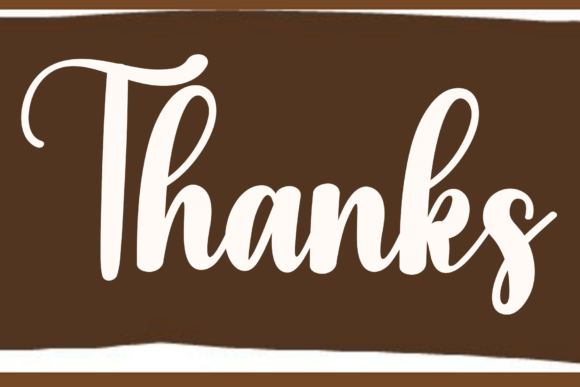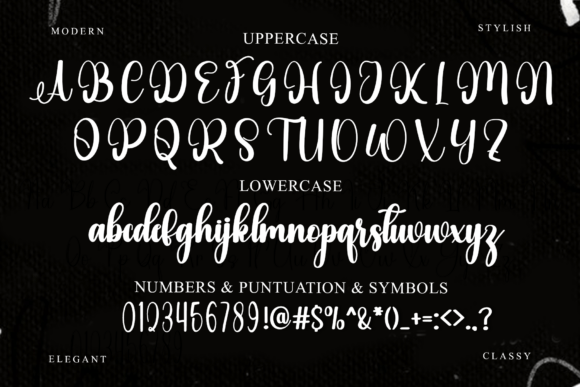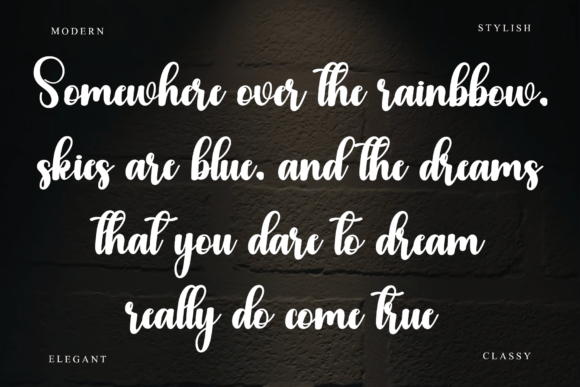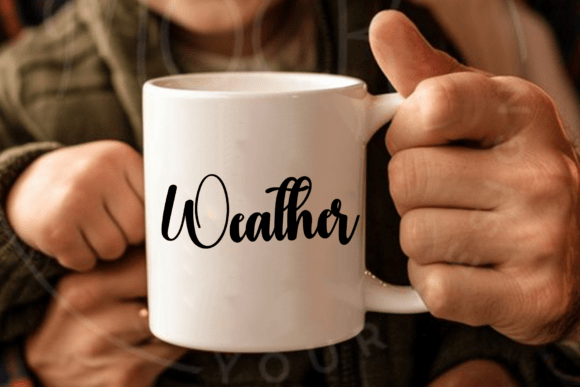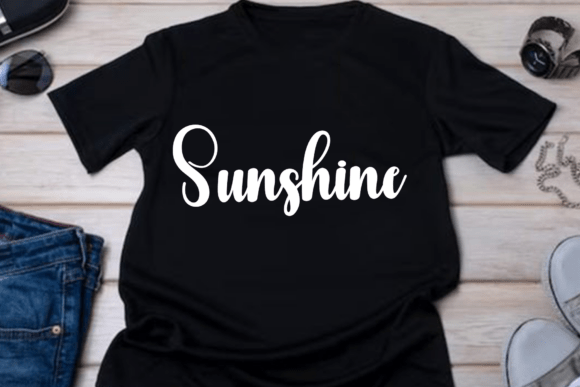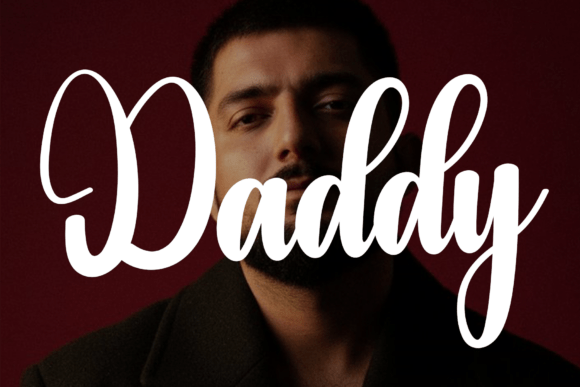
Introducing Cardinal Font: The Ultimate Holiday Typeface
The holiday season is upon us, and what better way to get into the spirit than with a festive and merry typeface? Look no further than Cardinal Font, a decorative and whimsical font that captures the essence of the most wonderful time of the year. With its enchanting elements and nostalgic flair, this font is perfect for adding a touch of magic to your designs, greeting cards, gift tags, and holiday-themed projects.
The Magic of Cardinal Font
Cardinal Font is more than just a typeface – it’s an experience. Its decorative elements and whimsical design evoke the feeling of a winter wonderland, transporting your readers to a world of snowflakes, hot chocolate, and cozy nights by the fire. Whether you’re a designer, crafter, or DIY enthusiast, this font is sure to bring a smile to your face and inspire your creativity.
Cardinal Font is specifically designed with the holiday season in mind. Its festive and merry design makes it perfect for a wide range of projects, including:
- Greeting cards: Create personalized and unique holiday cards that will make your loved ones feel special.
- Gift tags: Add a touch of elegance and whimsy to your gifts with custom gift tags featuring Cardinal Font.
- Holiday-themed projects: From invitations to party decorations, this font is perfect for any holiday-themed project.
One of the best things about Cardinal Font is that it’s PUA (Private Use Area) encoded. This means that you can access all of the amazing glyphs and ligatures with ease, giving you even more creative freedom to make your designs shine. With PUA encoding, you can:
- Easily access special characters and glyphs.
- Create unique and custom designs.
- Save time and effort with streamlined design workflow.
Bringing a Cheerful and Nostalgic Ambiance
Cardinal Font is more than just a font – it’s a feeling. It’s a way to evoke the nostalgia and cheer of the holiday season, bringing a sense of warmth and coziness to your designs. With this font, you can:
- Create designs that feel like a warm hug.
- Evoke the magic of the holiday season.
- Make your designs feel more personal and special.
Why Choose Cardinal Font?
With so many fonts to choose from, why choose Cardinal Font? Here are just a few reasons why this font stands out:
- Unique and decorative design.
- PUA encoded for easy access to glyphs and ligatures.
- Perfect for holiday-themed projects.
- Easy to use and integrate into your designs.
Get Ready to Shine with Cardinal Font
In conclusion, Cardinal Font is the ultimate holiday typeface for designers, crafters, and DIY enthusiasts. With its decorative elements, whimsical flair, and PUA encoding, this font is perfect for adding a touch of enchantment to your designs. Whether you’re creating greeting cards, gift tags, or holiday-themed projects, Cardinal Font is sure to bring a cheerful and nostalgic ambiance to your words. So why wait? Download Cardinal Font today and let your typography shine with the magic of the holiday season!